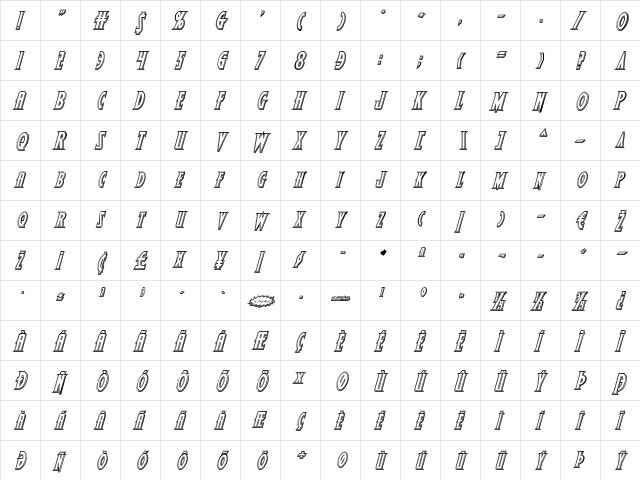
Design Context for Wolf's Bane II Engraved Italic Typeface
Wolf's Bane II Engraved Italic is built around its visual character rather than neutral utility — its distinctive forms are designed to make an impression at display sizes. Its italic angle brings a sense of urgency and motion to the letterforms.
Font Pairing: Pair with a clean neutral sans-serif for body copy to let Wolf's Bane II Engraved Italic's character lead without overwhelming the composition.
Pro Tip: Treat Wolf's Bane II Engraved Italic as the centrepiece of your typographic hierarchy. One strong heading set in a decorative face can carry an entire layout.